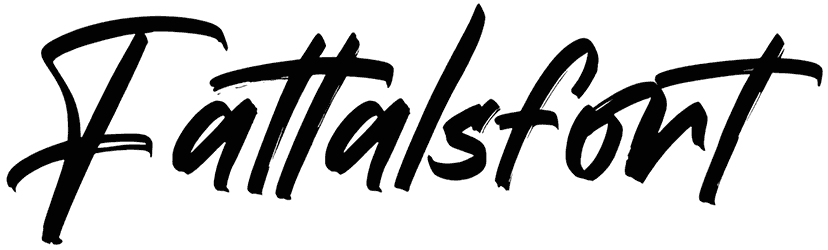
Fattalsfort Font
Causing a cool face would be an enjoyable experience with a catchy item like Fattalsfort. This brush font has a natural and smooth curvy style and can bring an urban vibe to your words. You can’t count on numbers and most punctuation marks, but as a script font, it can work well to display a lot of layouts, from book covers to apparel.